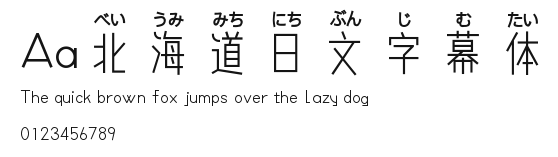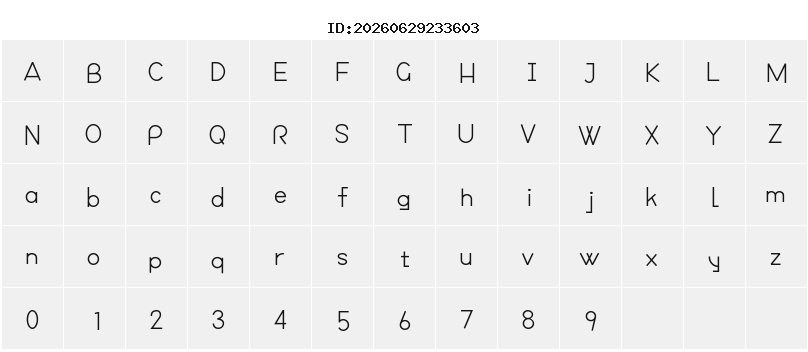
Aa北海道日文字幕体 Preview
• Font Name: Aa北海道日文字幕体
• Font Style: 常规
• Font ID: 1.000;Aa;AaBHDRWZMT;2021
• Full Font Name: Aa北海道日文字幕体
• PostScript Name: AaBHDRWZMT
• Character Count: 7909
• Designer: Aa
• Manufacturer: 翰美互通(厦门)科技有限公司
• Description: AaBHDRWZMT is a fantastic font with excellent features designed for user interfaces and electronic communications.
About Aa北海道日文字幕体.ttf
Aa北海道日文字幕体.ttf is a modern, elegant sans-serif font designed for ultimate readability and visual harmony. Perfect for branding, headlines, web design, and print materials.